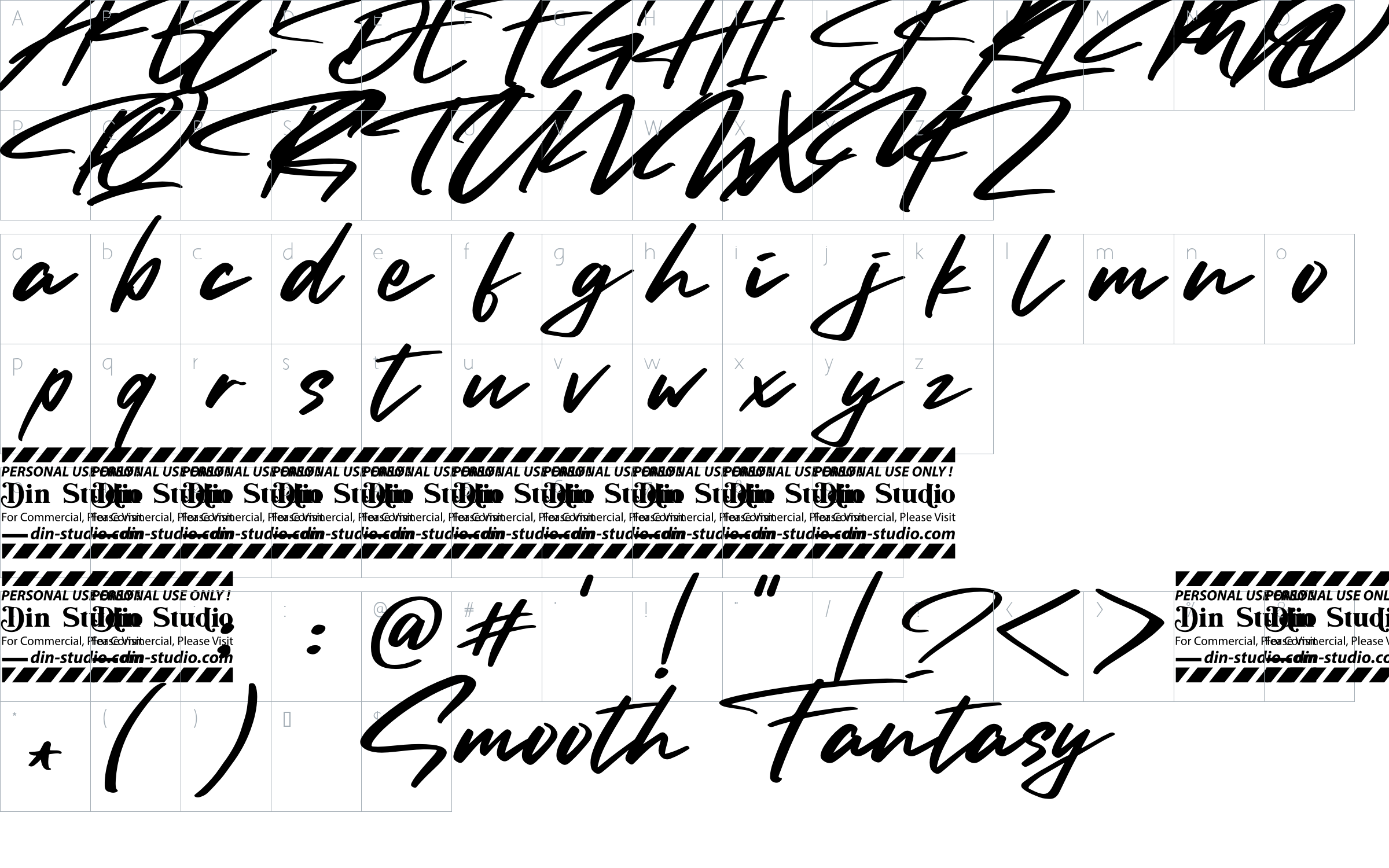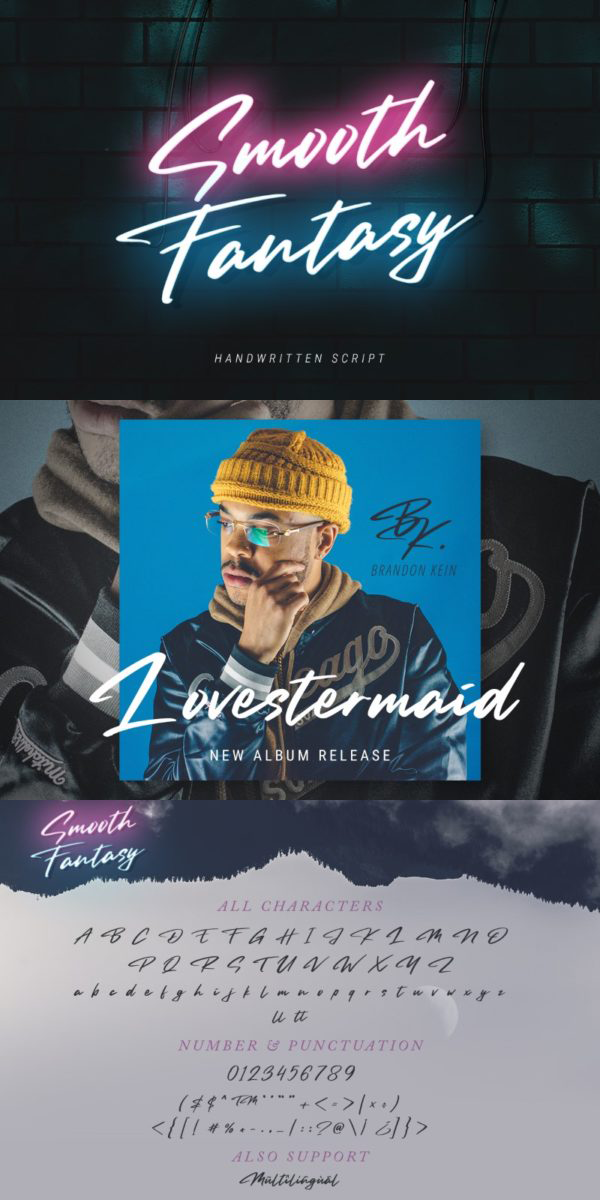
Smooth Fantasy Font
About Smooth Fantasy
With a chic and natural handwritten style, it brings a beautiful typeface. Smooth Fantasy is perfect for logotypes, brandings, quotes, and any other projects that need handwriting senses. This font is especially created for those of you who need a touch of elegance to design your projects with perfectly amazing results.
Smooth Fantasy includes uppercase and lowercase letters, numerals, ligatures, and punctuations. See the previews above to get to know how to use them. Happy designing!